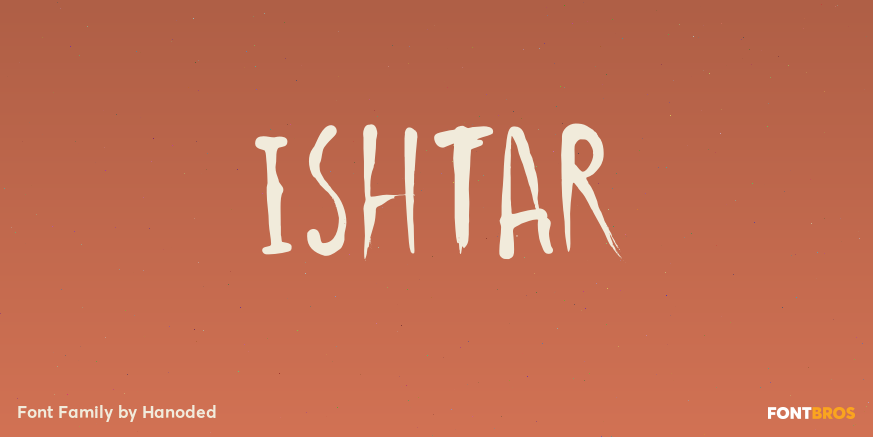
Ishtar
About Ishtar
Ishtar was the Babylonian goddess of war, fertility, love and sex – all in all a lethal combination. She wasn\’t the sweetheart her lovers had hoped for; I guess the ?war? part in her resume is a dead give-away. Ishtar font is no sweetheart either: it…